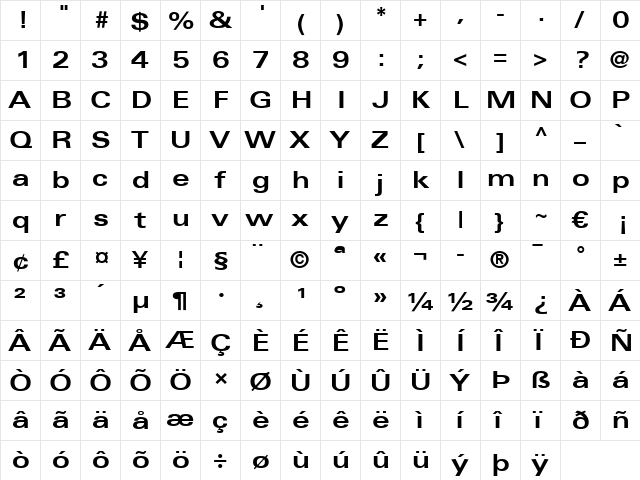
Univers LT 53 Extended Bold Font Preview
Univers LT 53 Extended Bold
Univers LT 53 Extended Bold Font Details
Design Context for Univers LT 53 Extended Typeface
Univers LT 53 Extended offers clean, dependable letterforms without strong stylistic allegiance, making it a practical choice for designers who need flexibility. The heavy weight commands attention and anchors typographic hierarchies.